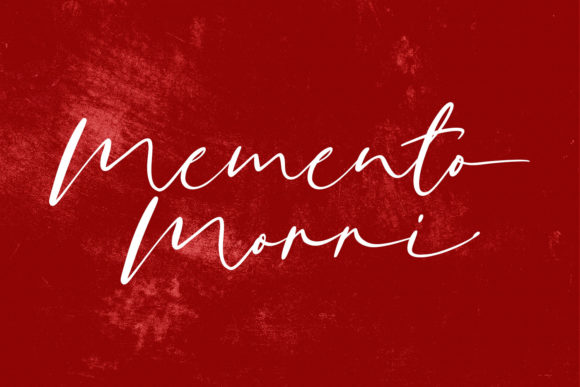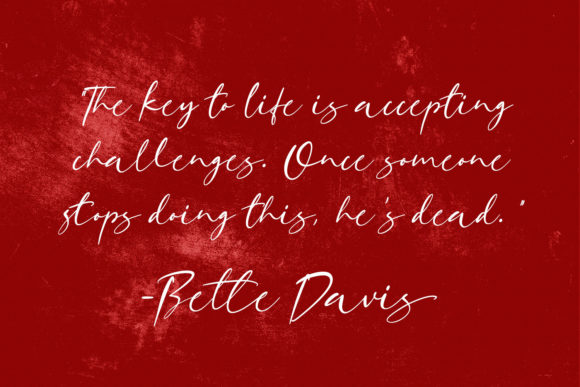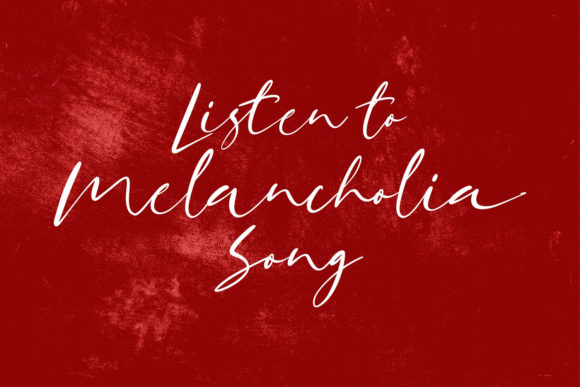
About Nostyx Script Font
Nostyx is an elegant modern script font. With high contrast stroke, fun character with a bit of ligature and alternates to give you extra creative work. This font is great for logo design, Social media, Movie Titles, Books Titles, a short text even long text. Make stunning work with Nostyx font!